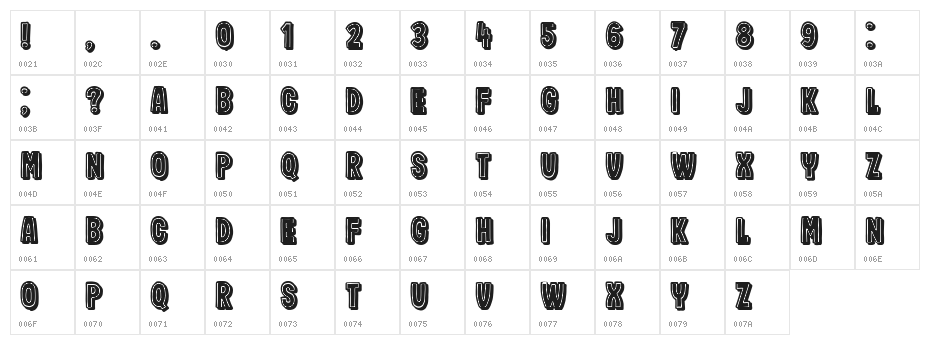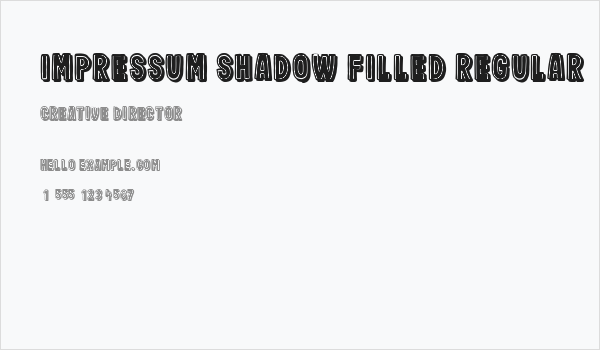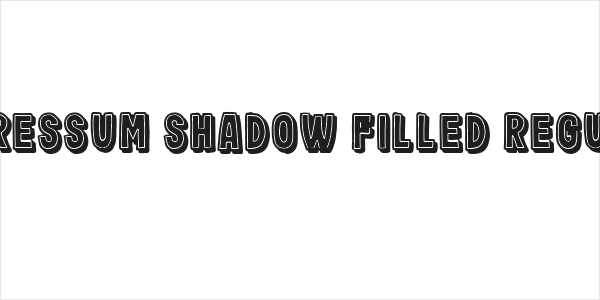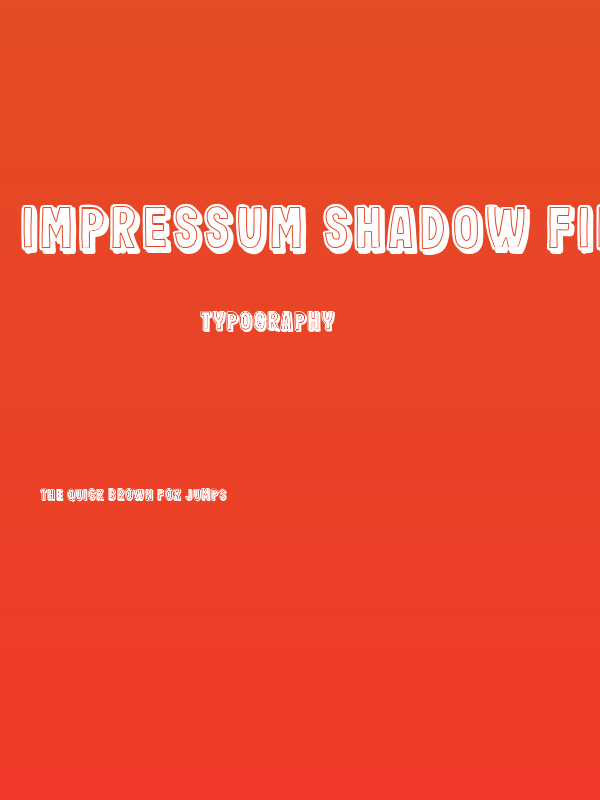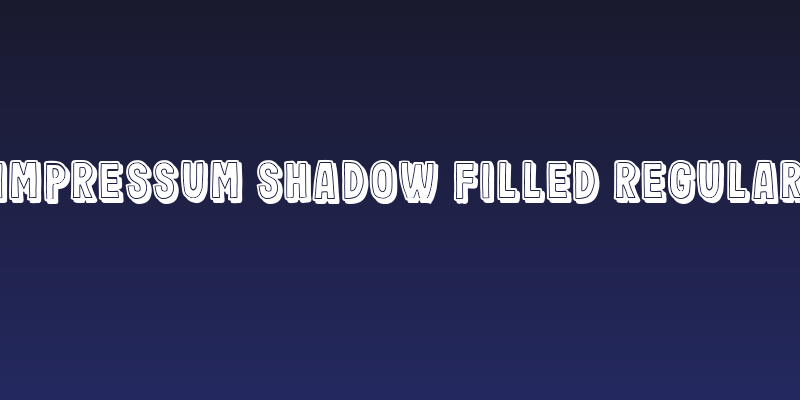
Impressum Shadow Filled Regular Font
Impressum Shadow Filled Regular Description
This font features bold, uppercase and lowercase letters with a distinct shadow effect that gives each character a three-dimensional appearance. The characters are filled, creating a strong visual impact. The style is playful yet bold, making it suitable for attention-grabbing designs. The numbers and special characters maintain the same shadowed, filled style, ensuring consistency across all elements. The font's design is both modern and decorative, with a touch of retro flair due to its shadowed effect.
| Proposed Projects | Ideal for posters, headlines, logos, and any design requiring a bold, eye-catching typeface. |